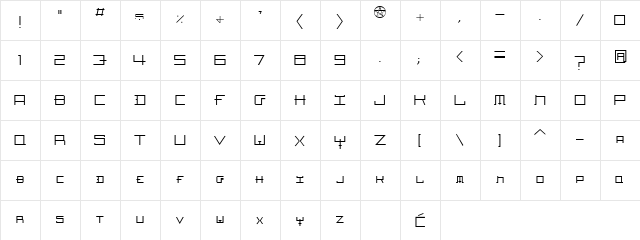
Hozenozzle Thin Regular
Design Context for Hozenozzle Thin Typeface
Hozenozzle Thin offers clean, dependable letterforms without strong stylistic allegiance, making it a practical choice for designers who need flexibility. Its slender proportions lend an understated elegance to any composition.
Pro Tip: Pair Hozenozzle Thin with a font of contrasting weight or personality to build a more expressive typographic hierarchy.